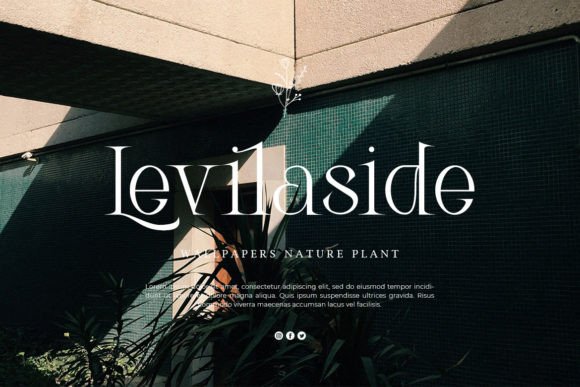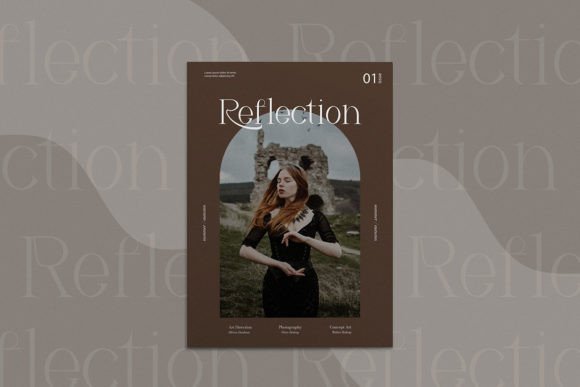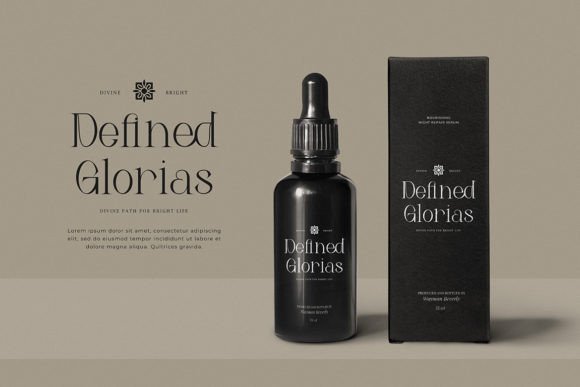
Introduction to Redellian Font
Have you ever been stuck on a creative project, staring at a blank screen, searching for the perfect font to bring your vision to life? The perfect font can elevate a design from ordinary to extraordinary, and that’s exactly what the Redellian Font offers.
With its elegant and contemporary aesthetic, the Redellian Font is a valuable resource for designers looking to add a touch of sophistication to their work. Its traditional influences are expertly blended with modern flair, making it an ideal choice for a wide range of projects, from high-quality print materials to digital designs with transparent backgrounds.
Key Features of Redellian Font
- High-quality font with a unique, modern design perfect for creative projects and design resources.
- Supports transparent background, making it easy to use in designs with complex backgrounds.
- Features a clean and elegant design, suitable for a wide range of creative projects, from logos to typography-based art.
Honest Review: Redellian Font
As a designer, I’m always on the lookout for unique and high-quality design resources. Recently, I had the chance to try out the Redellian Font, and I must say it’s been a game-changer for my creative project. ✨
Here are some of the things that work well with the Redellian Font:
- Unique, modern design aesthetic
- High quality font files
That being said, there are a few limitations to keep in mind:
- Not ideal for large-scale text compositions
- May require additional formatting for certain design software
- Not as extensive a character set as some other fonts
Overall, I’m really impressed with the Redellian Font. It’s a fantastic design resource that’s perfect for creative projects. If you’re looking for a unique and high-quality font, I’d definitely recommend giving it a try!
Introduction to Redellian Font
The Redellian Font is a high-quality design resource ideal for creative projects that require a unique and stylish touch. With its transparent background, this font can be easily integrated into various design platforms.
Tips for Getting the Most Out of Redellian Font
- Combine the Redellian Font with other design elements to create a visually appealing design.
- Use the transparent background feature to create a seamless design experience.
Common Use Cases for Redellian Font
- Brochure and flyer design
When to use: Museo Font is perfect for designs that need a clean and minimal look, such as corporate identities, websites, and magazines.
How it compares to Redellian Font: Museo Font has a more modern and sleek appearance compared to Redellian Font, making it a great choice for contemporary designs.
Open Sans Font is a popular, open-source font that is highly versatile and suitable for a wide range of creative projects. It features a clear and legible design, making it perfect for body text and headings. Open Sans Font is available for free download and is a great design resource for designers.
When to use: Open Sans Font is ideal for designs that require a clean and professional look, such as resumes, business cards, and websites.
How it compares to Redellian Font: Open Sans Font has a more neutral and timeless appearance compared to Redellian Font, making it a great choice for designs that need a classic look.
Can I modify the Redellian Font to suit my design needs?
The Redellian Font is a pre-designed font, and modifying it may require advanced font editing skills. However, you can adjust the font’s size, color, and style to suit your design needs. Additionally, you can use font manipulation software to create custom font variations or combinations with other fonts.